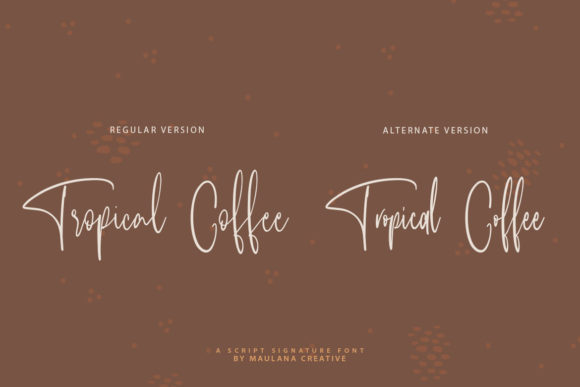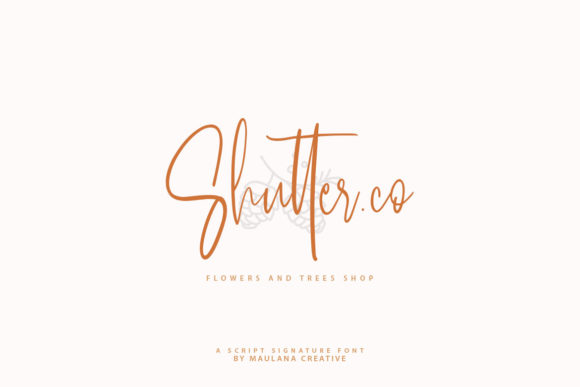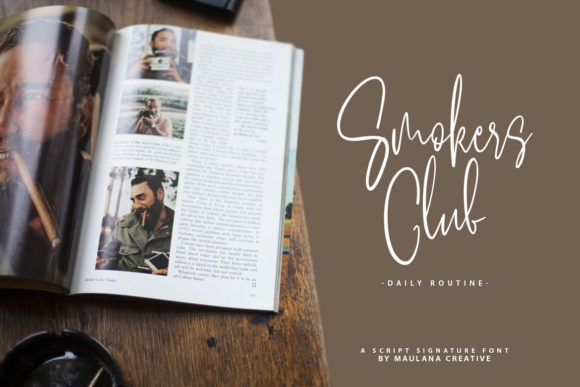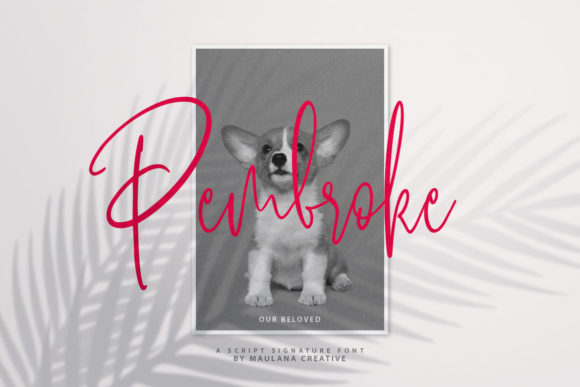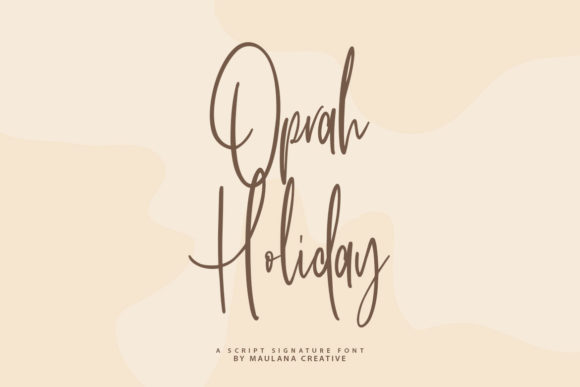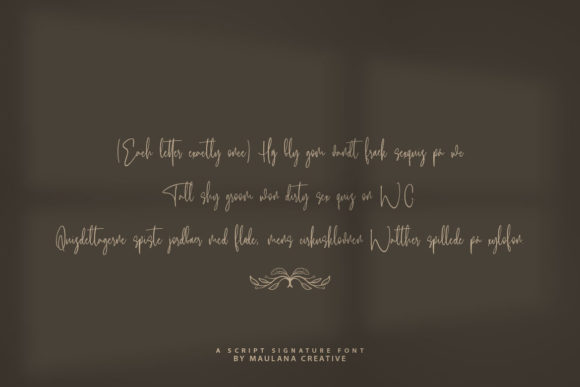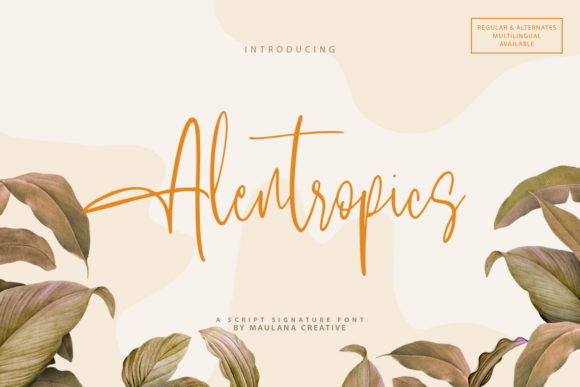
The Quest for the Perfect Font: How Alentropics Stole My Heart
I still remember the frustration of scrolling through font after font, searching for the perfect one to complement my latest arts and crafts project. As a designer, I’ve had my fair share of font fatigue, but nothing seems to capture the essence of my creative vision. That was until I stumbled upon Alentropics – a modern, charming font that instantly resonated with me.
So, what makes Alentropics so special? Here are a few things that I absolutely adore about this font:
- ✨ Modern vibe: Alentropics exudes a fresh, contemporary feel that’s perfect for arts and crafts projects, branding, and even digital media.
- ✅ Legibility: The font is incredibly clear, making it easy to read even at smaller sizes.
- 💡 Versatility: Alentropics comes with a range of OpenType features, glyphs, and stylistic alternates that allow you to experiment with different styles and effects.
Of course, no font is perfect, and Alentropics has a few minor quirks:
- 🤔 Limited language support: While Alentropics covers a range of languages, it may not support every language or character set.
- ⚠️ Occasional kerning issues: As with any font, you may encounter some kerning issues, especially when using certain character combinations.
The Story Behind Alentropics: Designer Inspiration
Alentropics was designed with the creative hobbyist in mind. Its creator, a passionate typographer, aimed to craft a font that would bring a touch of modern sophistication to arts and crafts projects. Inspired by the world of handmade crafts and DIY culture, Alentropics embodies the perfect blend of style and approachability.
| What is Alentropics font best suited for? | Alentropics is ideal for arts and crafts projects, branding, digital media, and any creative endeavor that requires a modern, authentic feel. |
| Does Alentropics support OpenType features? | Yes, Alentropics comes with a range of OpenType features, glyphs, and stylistic alternates that allow you to experiment with different styles and effects. |